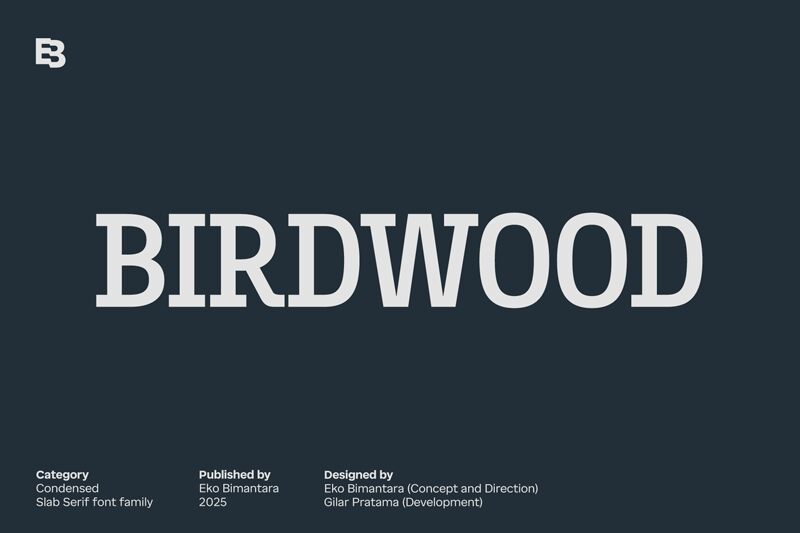
Birdwood font family by Eko Bimantara consists of 8 font styles. This font family supports serif and sans serif styles in order to cover a wide range of applications and uses. With its rugged and industrial characters, it’s best used for purposes where a powerful and assertive overall look is needed. The letters are well structured and thus guarantee legibility and professionalism.
Use this font for logos, branding projects, invitation designs, packaging, marketing, website development, and apparel among others. Set them in big sizes for modern but timeless headlines in magazines and newspapers. Use the smaller sans serif styles for body copies, or combine them with another more simple typeface.